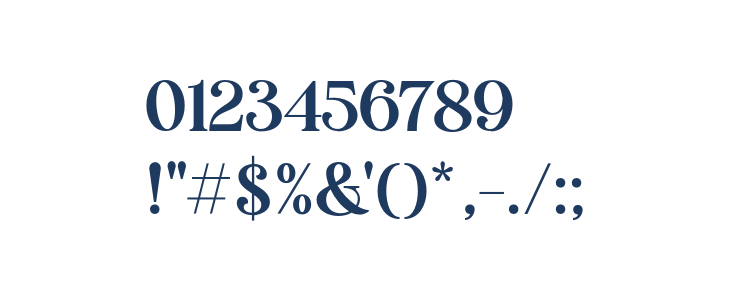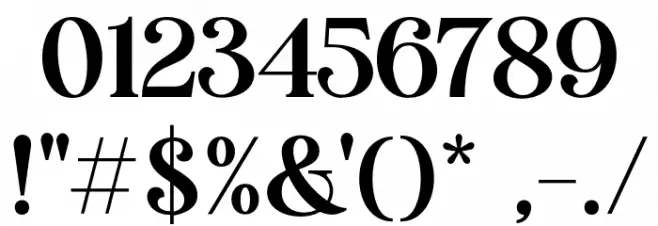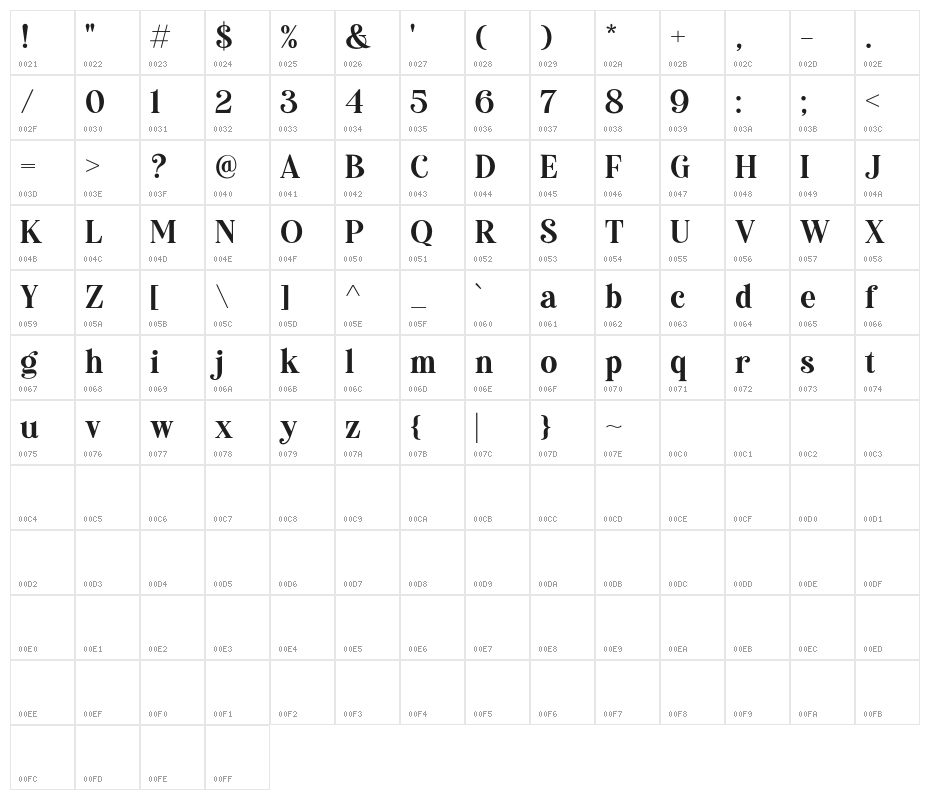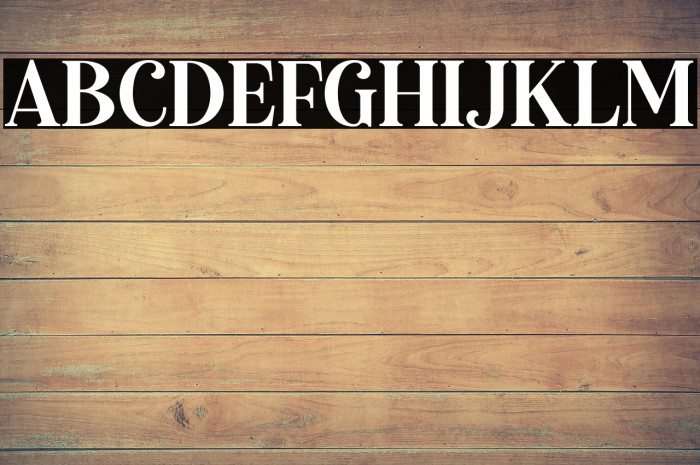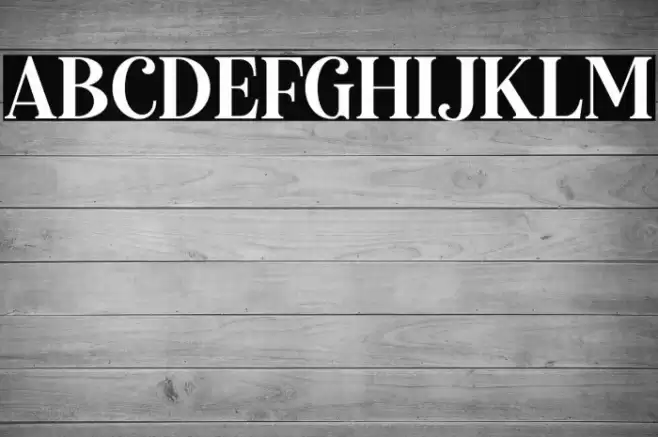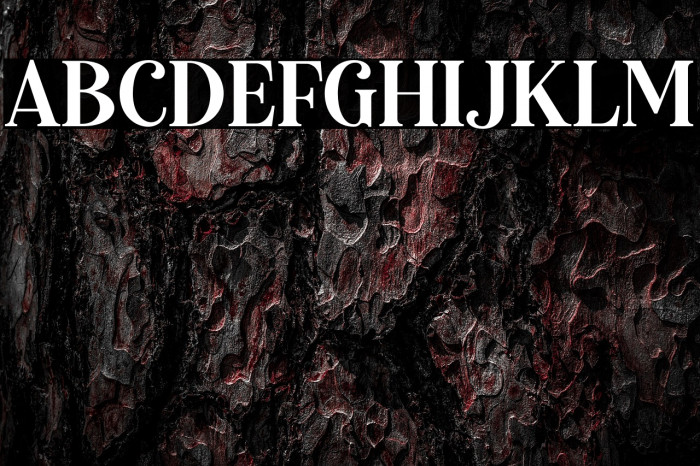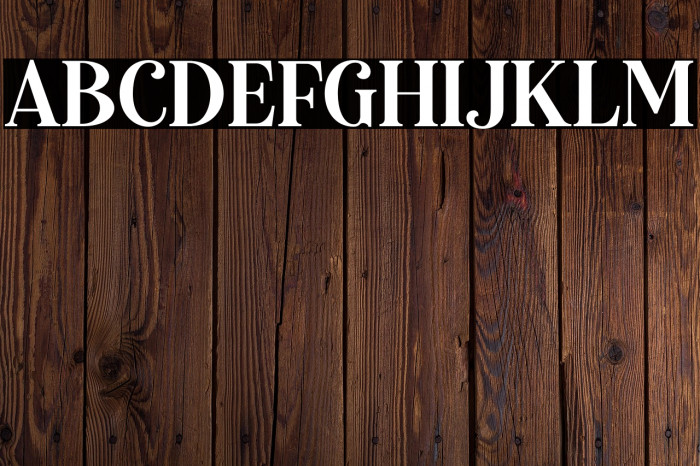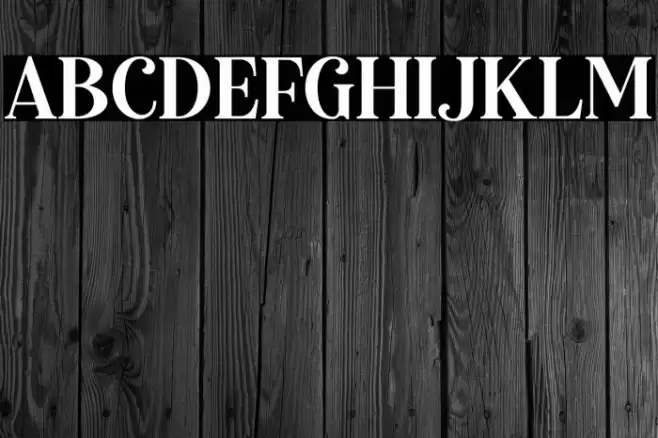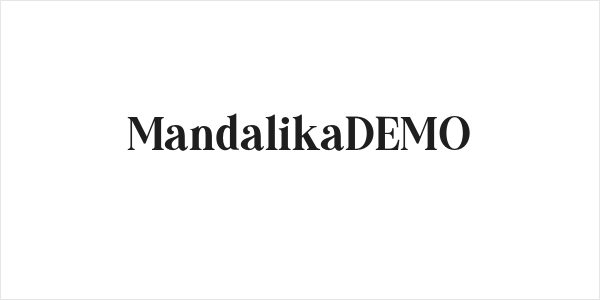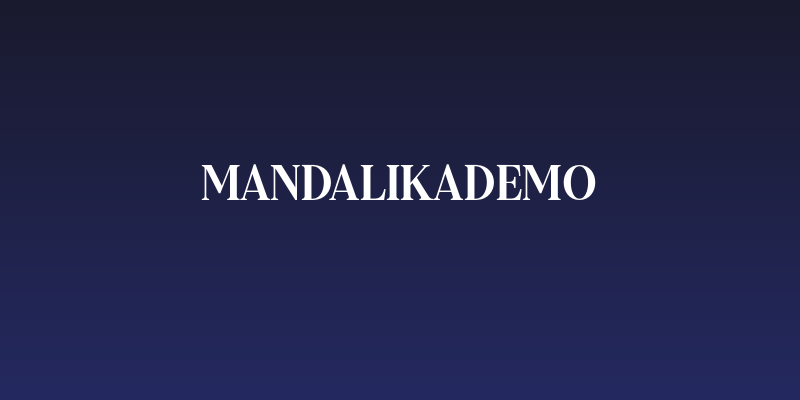
MandalikaDEMO Font
MandalikaDEMO Description
This font features a classic serif style with strong, bold strokes and high contrast between thick and thin lines. The serifs are pronounced, giving it a traditional and authoritative appearance. The uppercase letters are tall and commanding, while the lowercase letters maintain a consistent flow with rounded edges and balanced proportions. The numerals are clear and legible, matching the overall aesthetic of the alphabet. Special characters are designed with the same attention to detail, ensuring uniformity across all glyphs. This font is ideal for projects that require a formal and elegant touch, such as editorial design, book covers, and branding materials.
| Proposed Projects | Editorial design, book covers, branding materials, formal invitations, and corporate identity. |